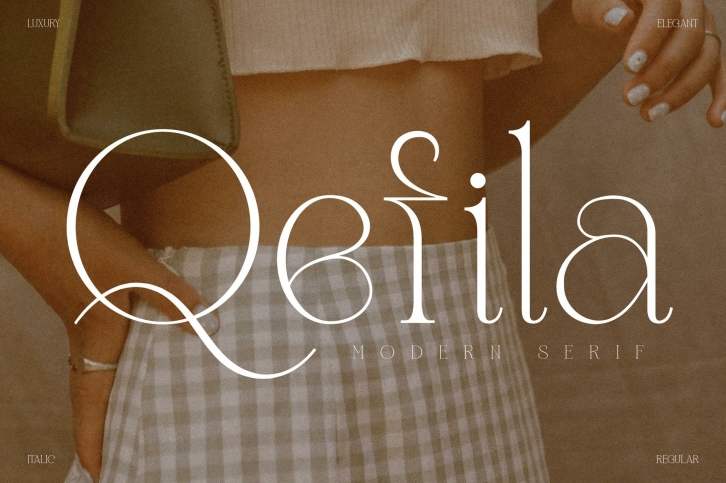
Qefila is a great font that was designed by Pricilia Design. Imagine the amount of combinations you can create using this font! The archive is 14.25 MB and it was released on October 13, 2022. Qefila looks beautiful on wedding invitations, greeting cards, logos, posters, labels, t-shirt designs, logos, business cards and is perfect for use in ink or watercolor works, fashion, magazines, packaging and food menus, children's books and more!